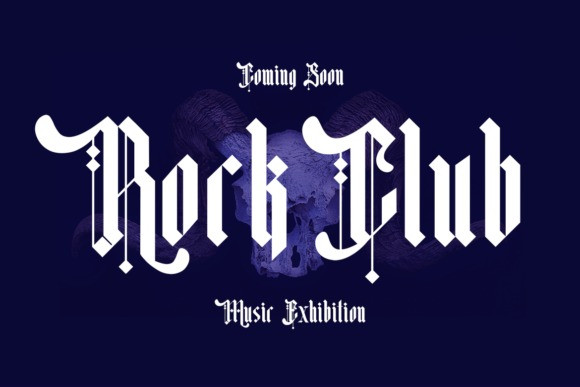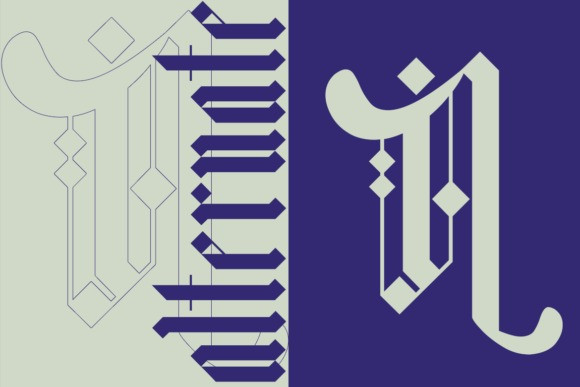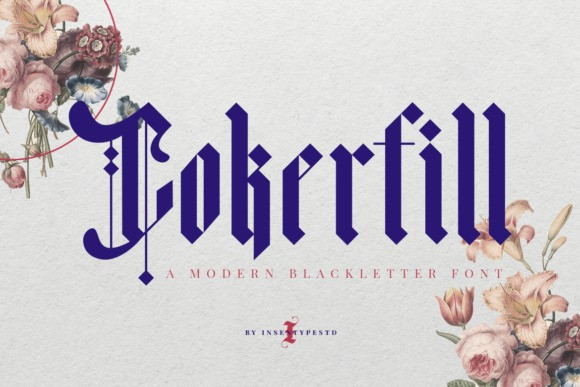
Cokerfill Font
Cokerfill Font is a modern blackletter font inspired by old English texts. Its textured uppercase alternatives make this font luxurious.
This font is perfect for creations that need a vintage feel. Cokerfill is perfect for a branding project, logo, social media posts, advertisements, product packaging, product designs, label, watermark, and any project that needs an old English feel.